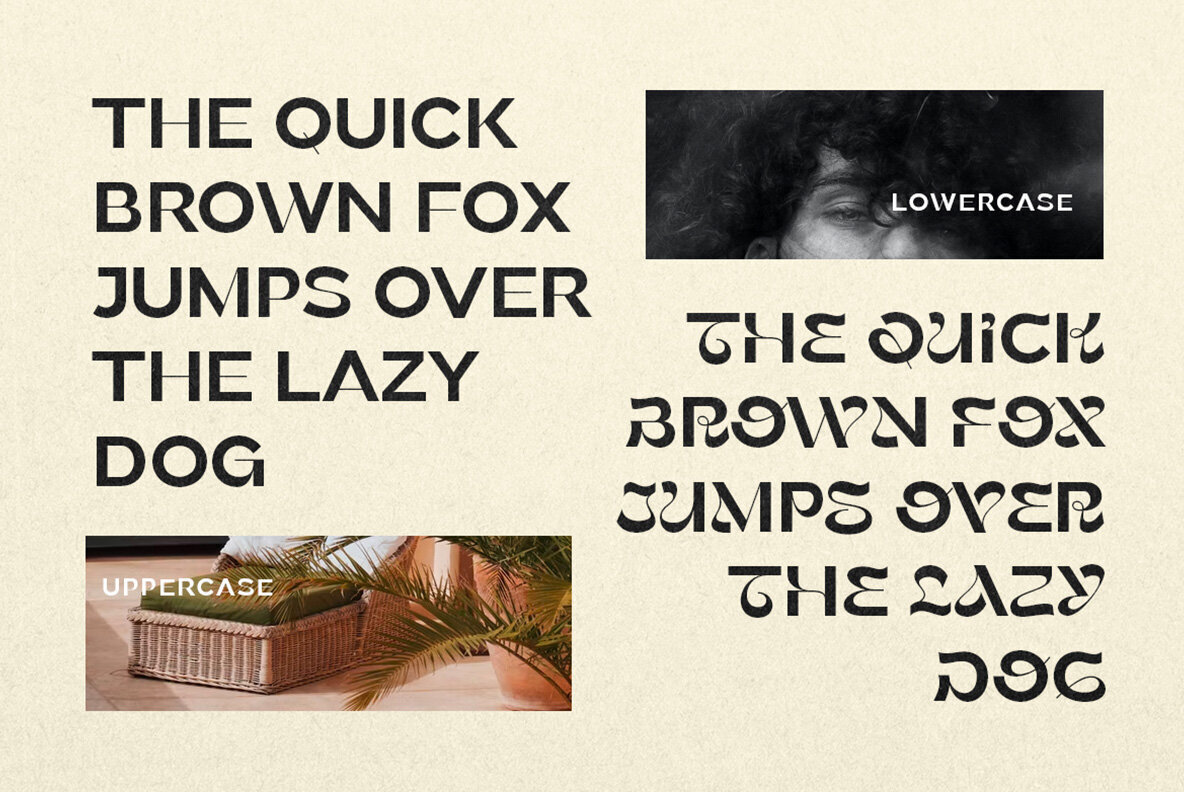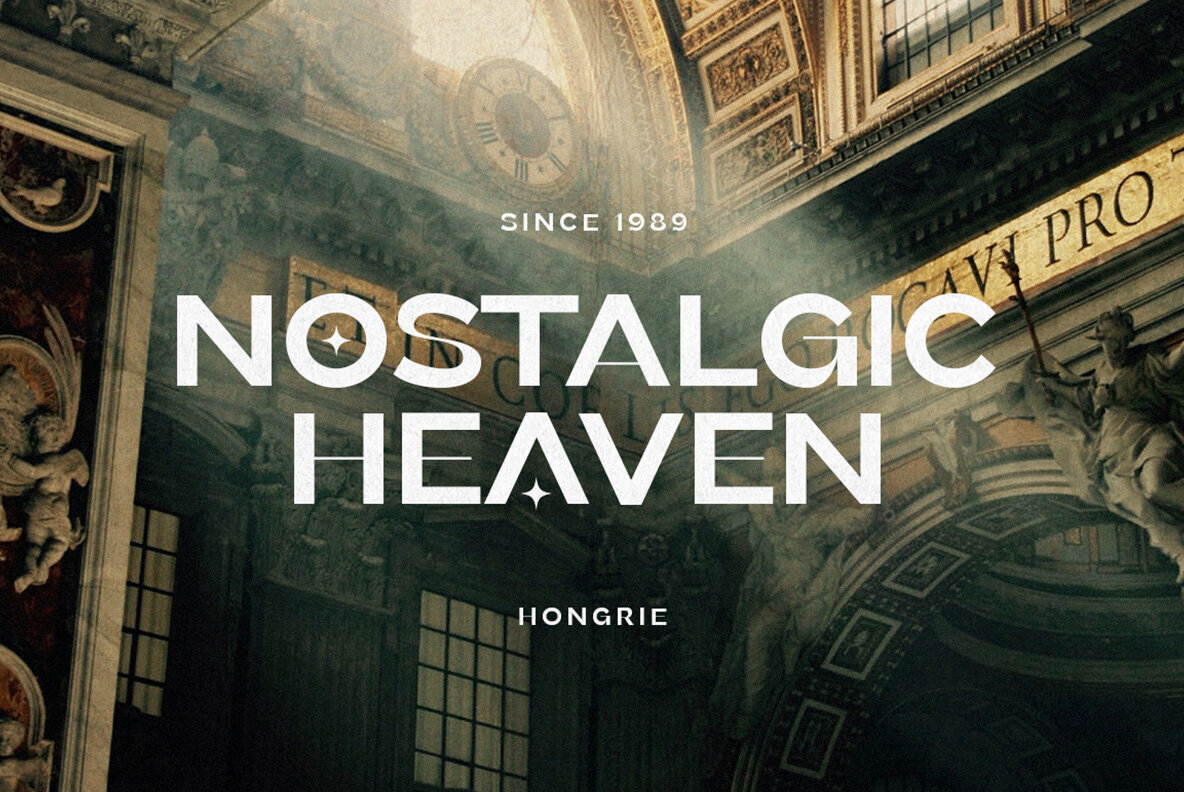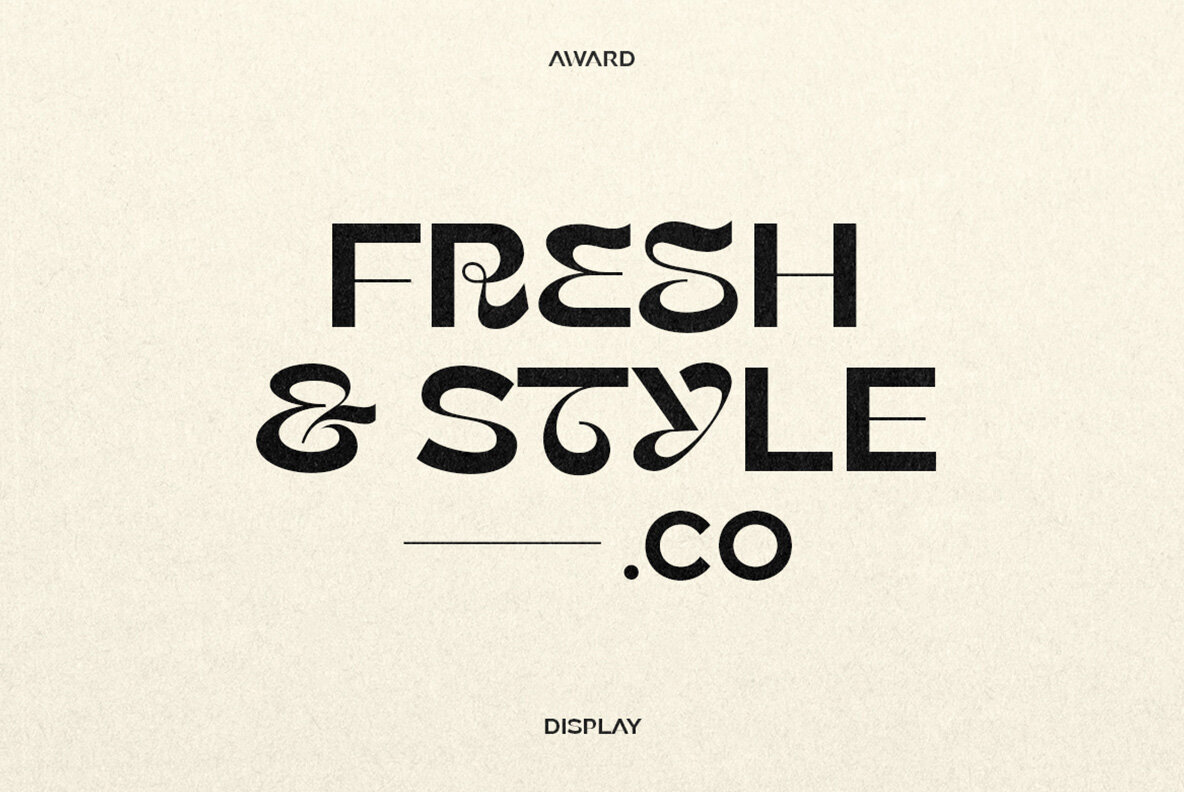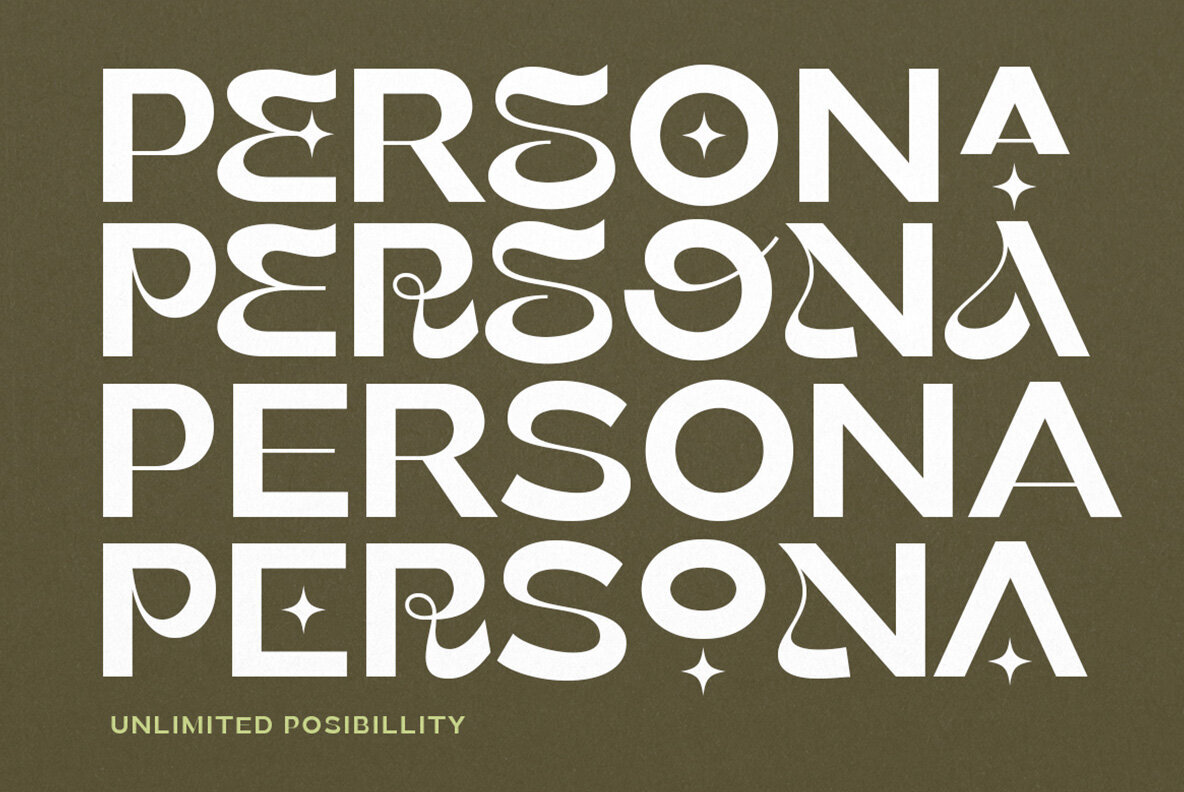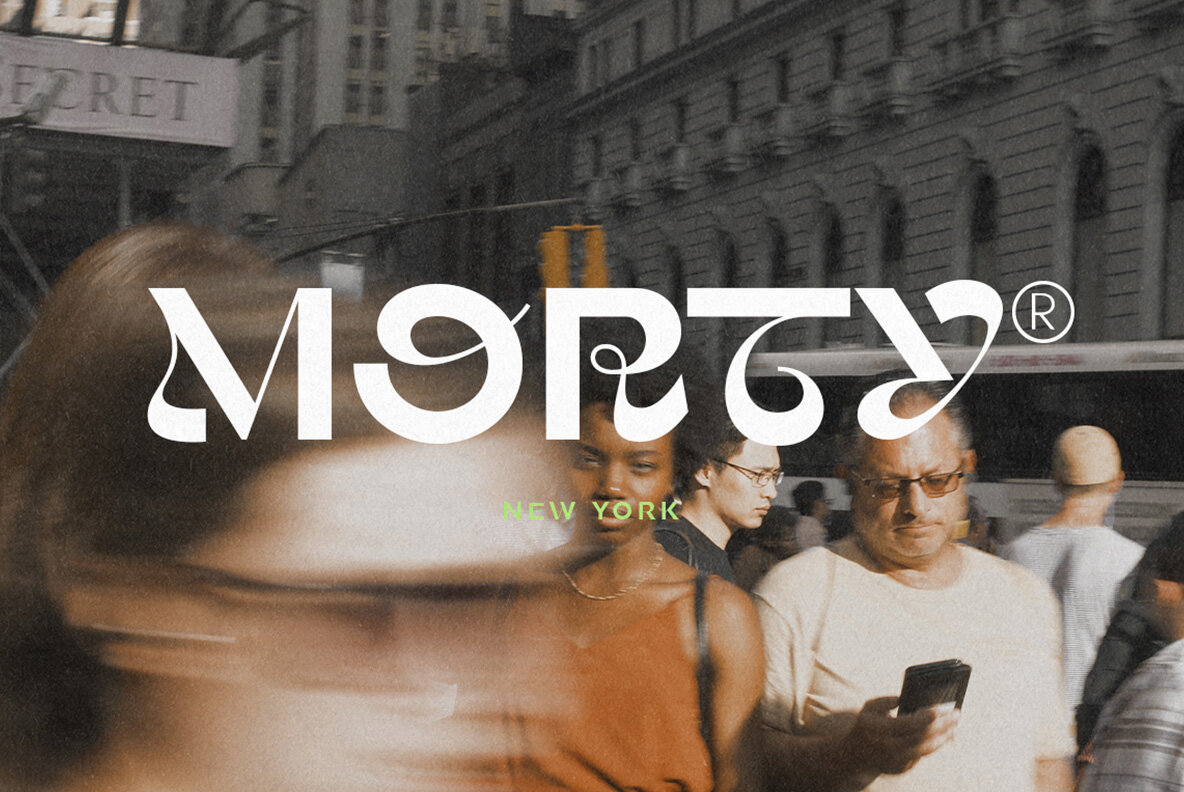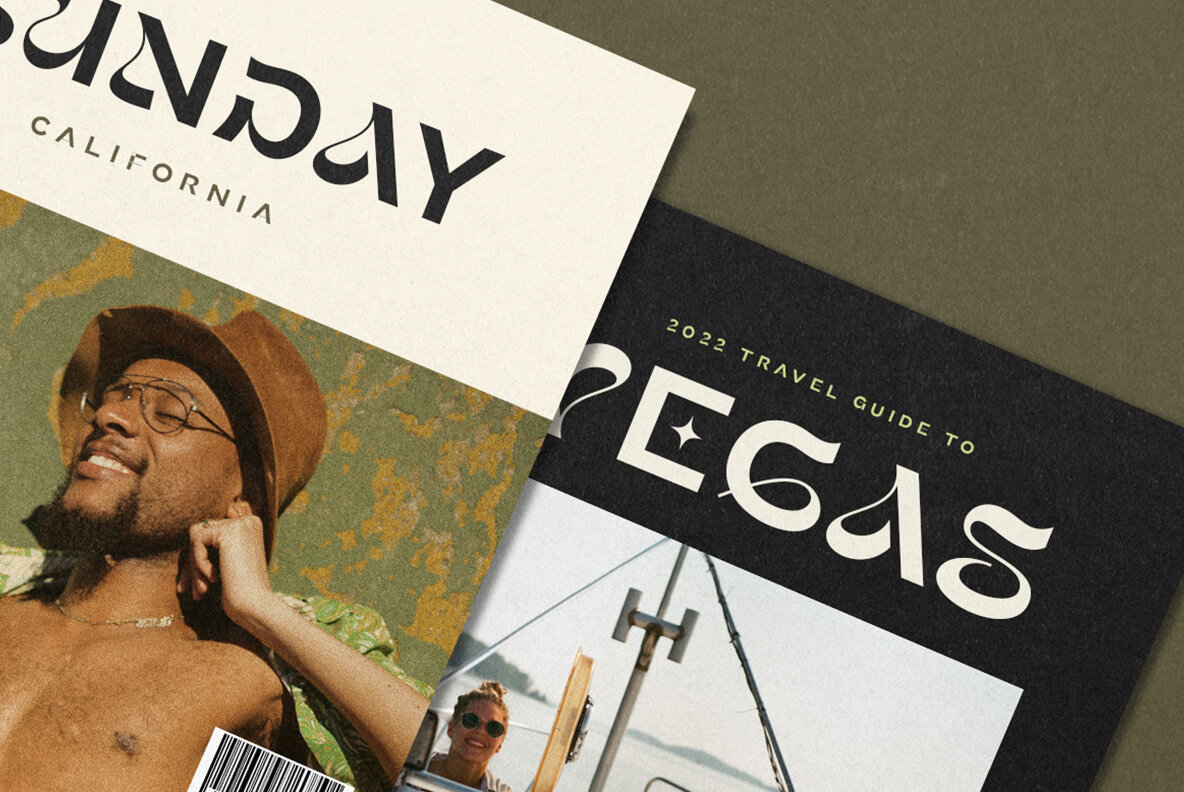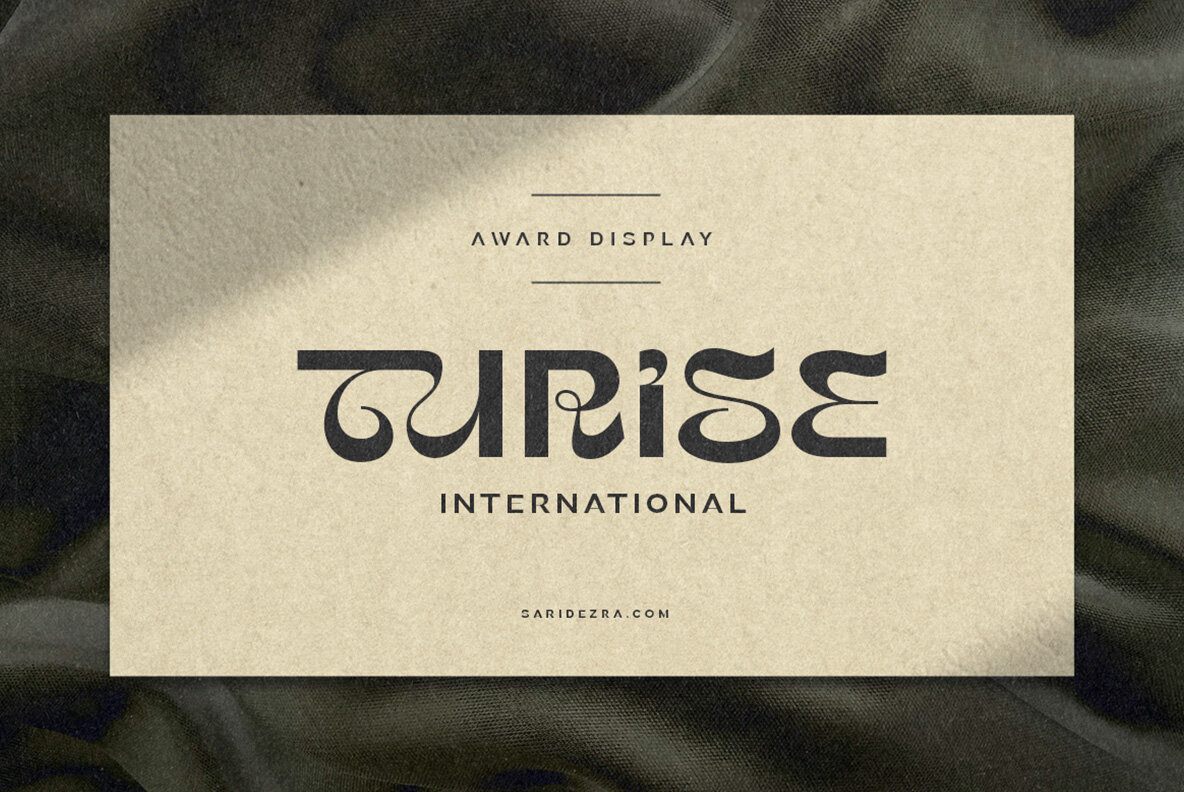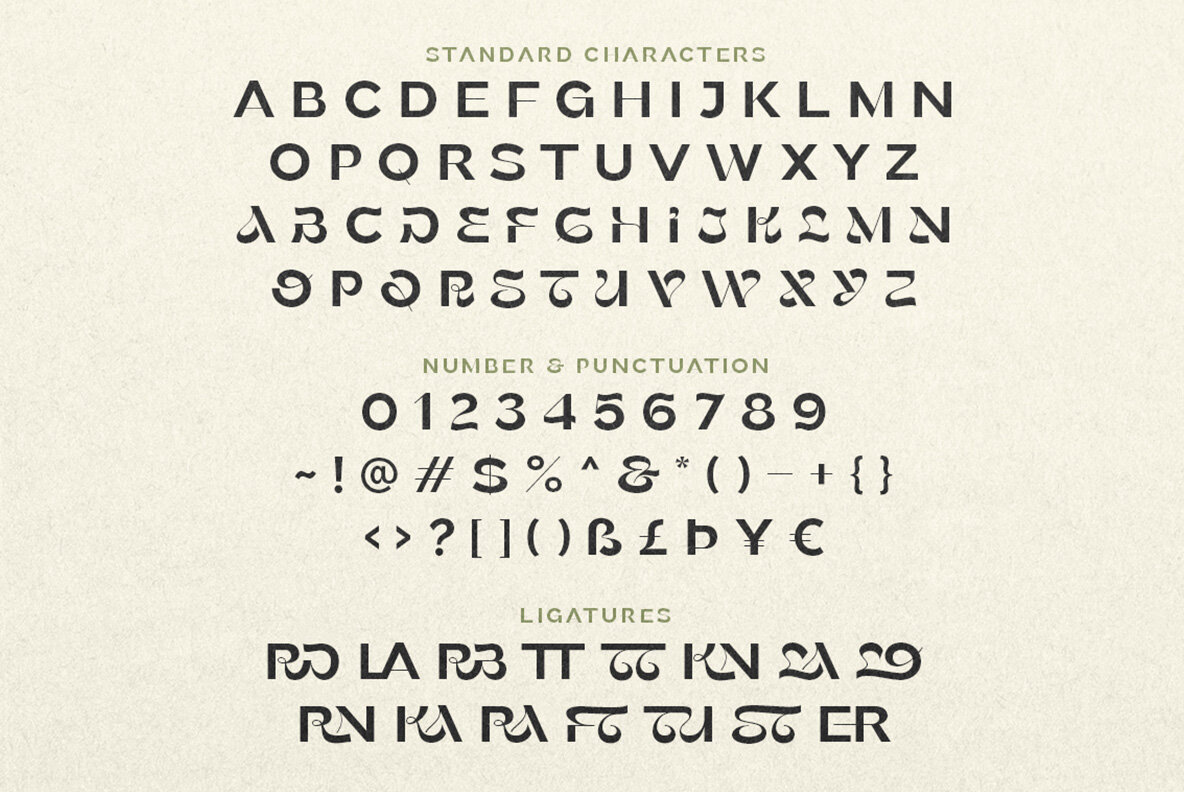
Awards Font
Awards is a modern and styled typeface based on sans-serif basics. It includes a unique lowercase set that will complement your branding, as well as unique alternates for additional flair! This versatile font also supports multilingual content so you can use it in any project with no problem whatsoever.